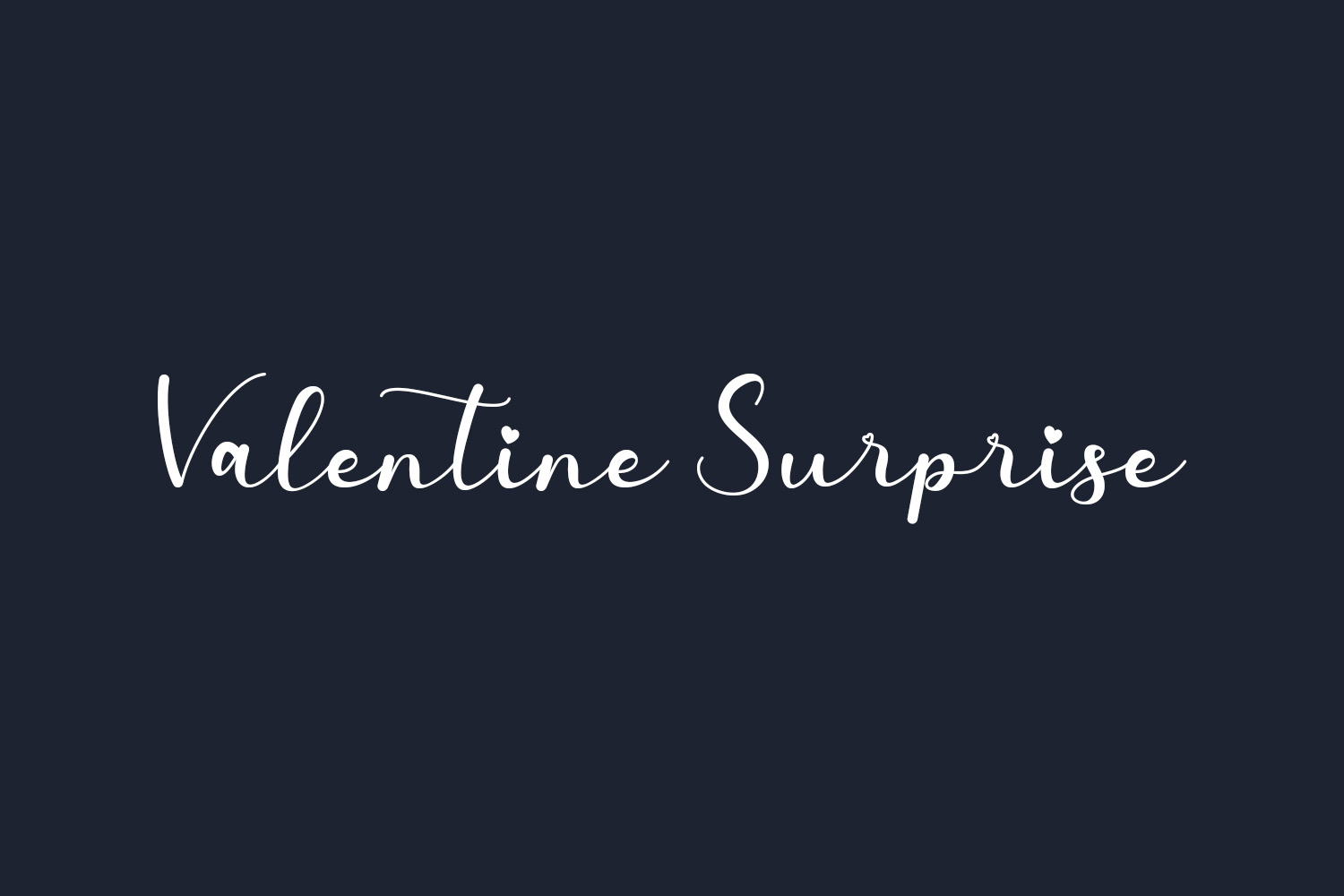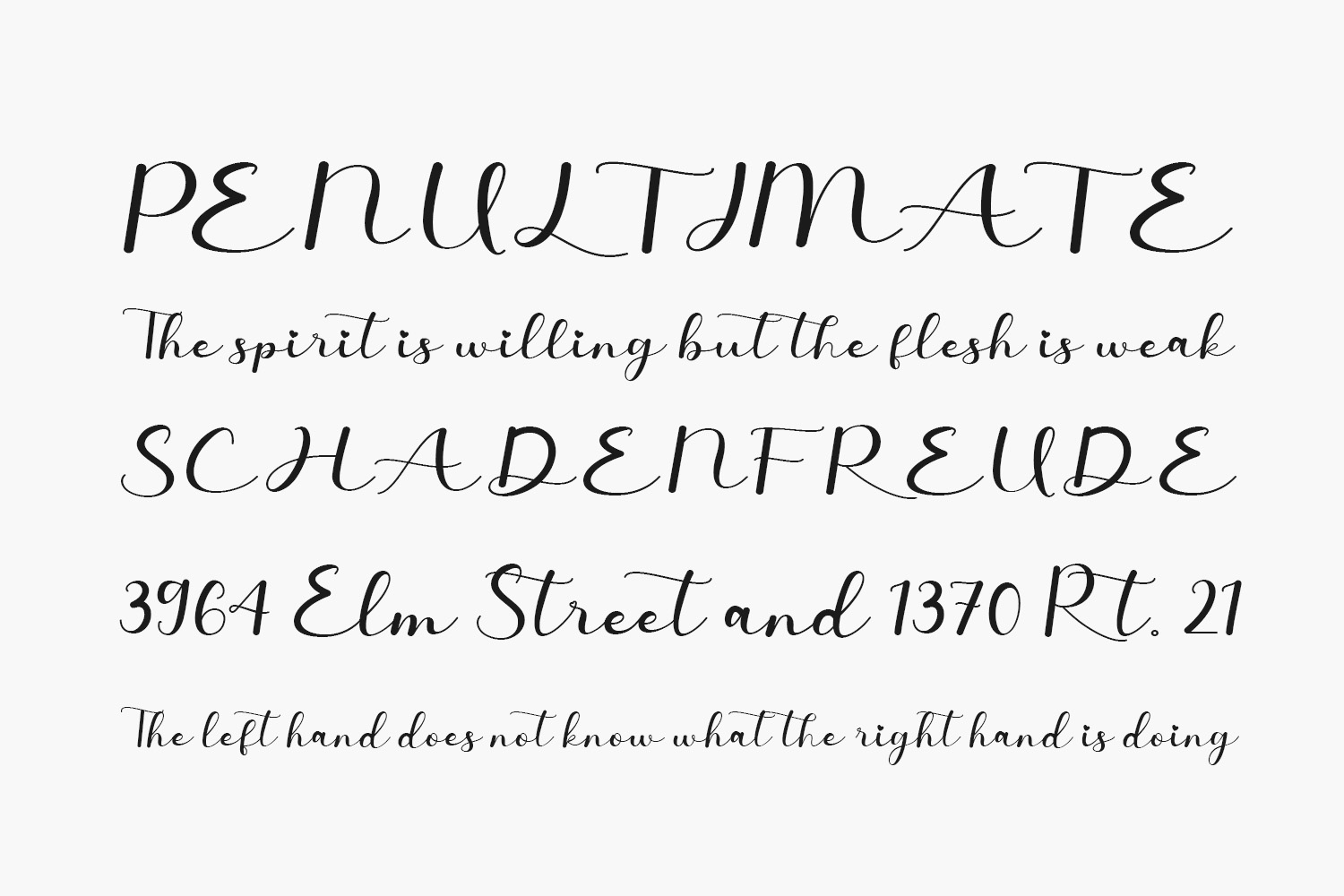
Experience the enchanting allure of Valentine Surprise Free Font, a captivating and romantic script font. Embrace its genuine charm to craft stunning wedding invitations, elegant logos, and stylish stationary art. Elevate your social media presence with eye-catching posts, convey warmth through adorable greeting cards, and explore endless creative possibilities. Valentine Surprise Free Font was designed by AEN Creative Studio and is free for personal use only. Please purchase the full version for commercial use.